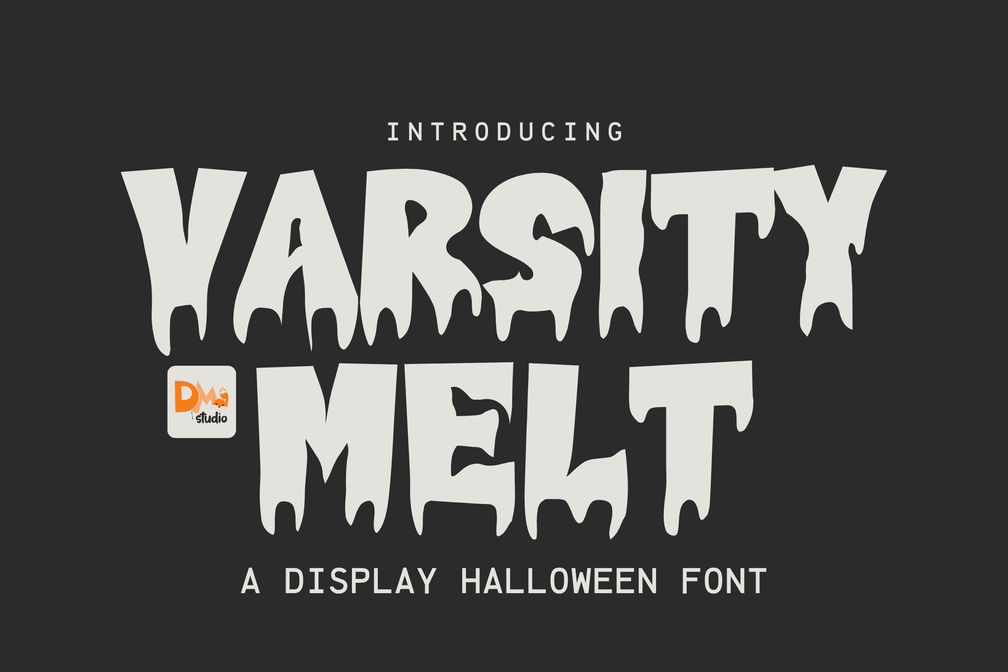
Varsity Melt
Varsity Melt – Dripping & Bold Display Font
Varsity Melt is a bold and creative display font that combines classic varsity-style lettering with a dripping, melting effect. Perfect for edgy and fun designs, this font is ideal for Halloween projects, streetwear branding, posters, album covers, social media graphics, and eye-catching headlines. Its unique melting effect adds a bold, rebellious, and playful twist to any design.
• Dripping Varsity Lettering: A bold varsity-style font with a creative melting effect.
• Perfect for Edgy & Fun Designs: Great for posters, streetwear, horror themes, and bold branding.
• Unique & Eye-Catching Aesthetic: Adds a dynamic and rebellious touch to any project.